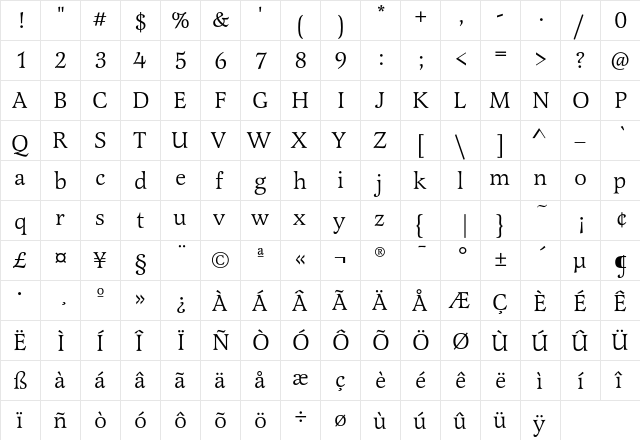
LatienneEF-Roman Regular
Design Context for LatienneEF-Roman Typeface
LatienneEF-Roman takes a measured approach to typography — its balanced proportions and neutral character make it a reliable workhorse for both digital and print work.